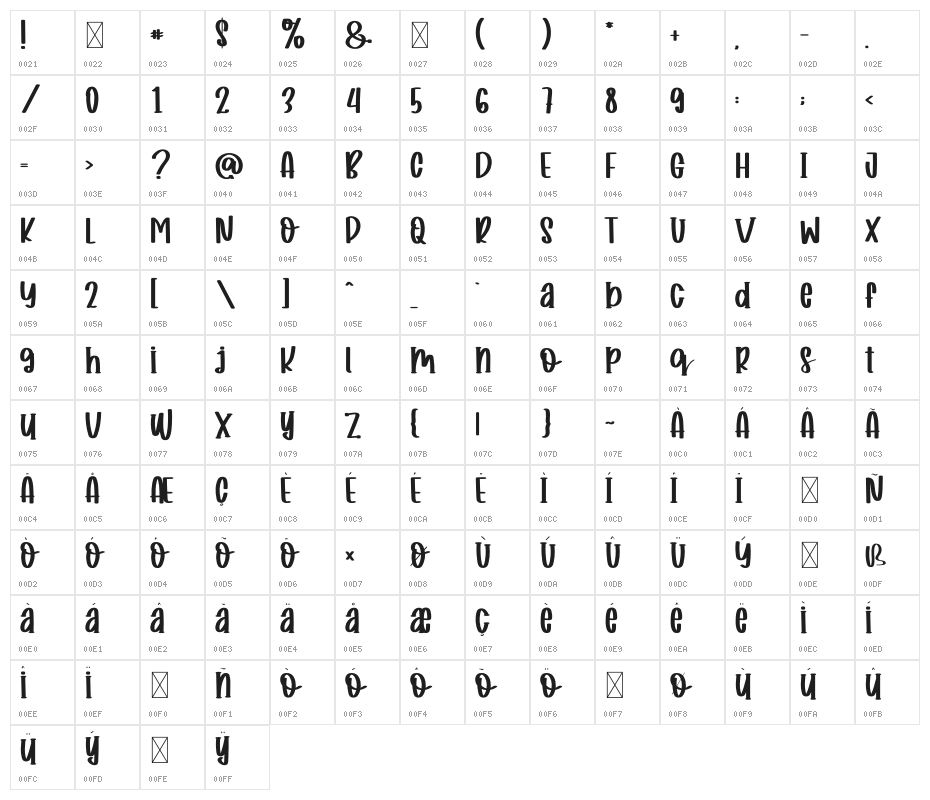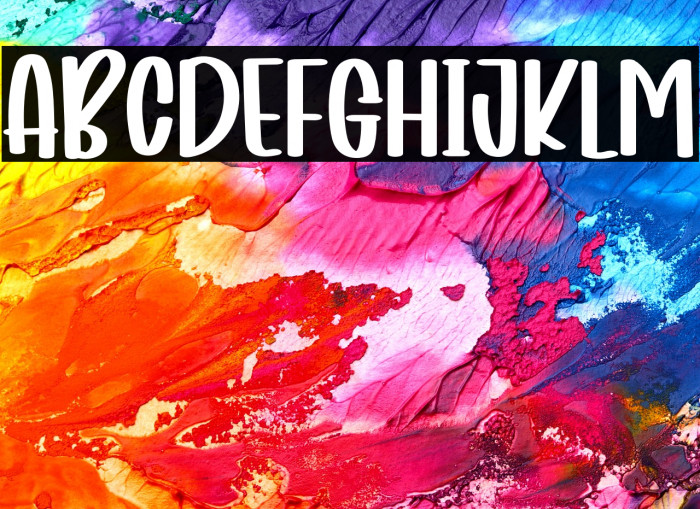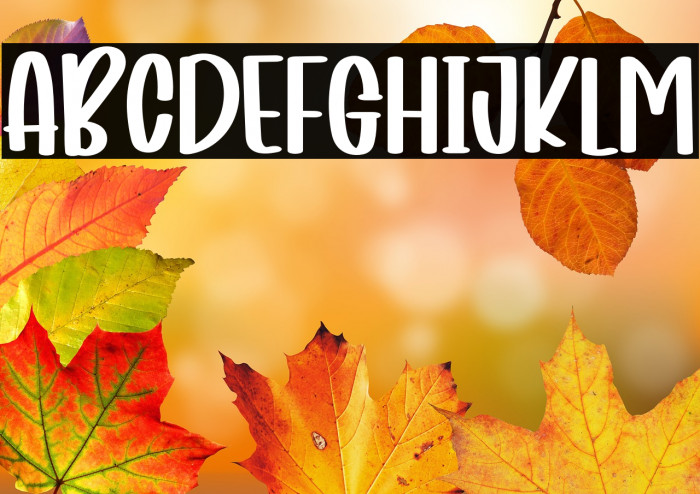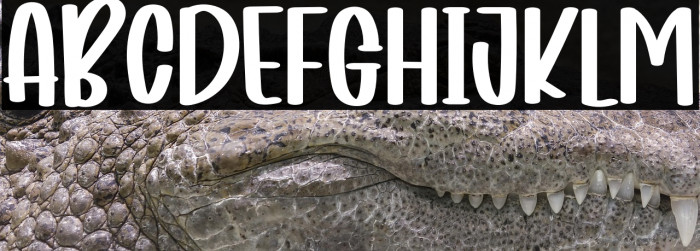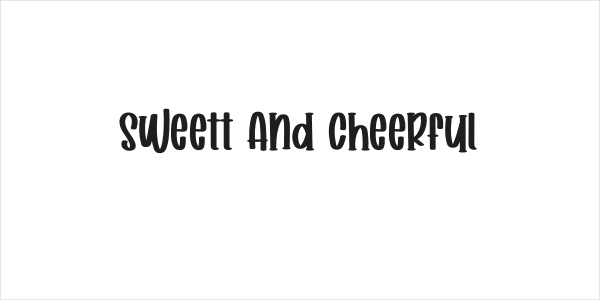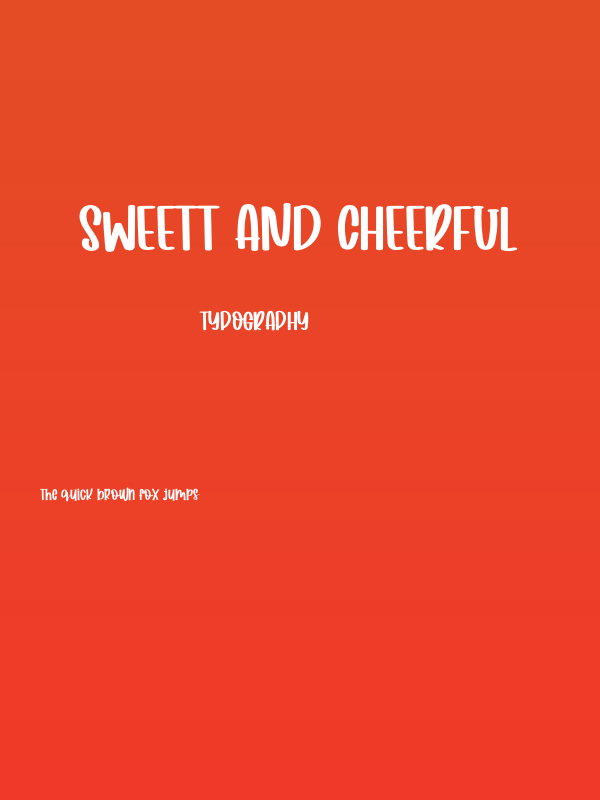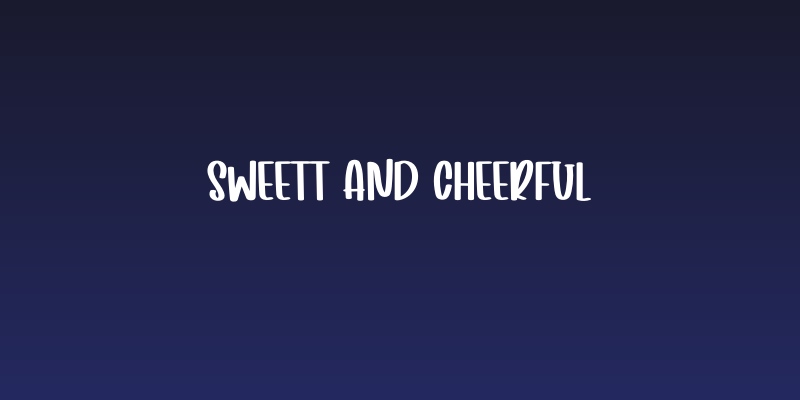
Sweett And Cheerful Font
Sweett And Cheerful Description
This font exudes a playful and cheerful vibe, characterized by its bold and rounded letterforms. The strokes are thick and consistent, creating a sense of warmth and friendliness. Each character has a slightly whimsical touch, with some letters featuring subtle curves and playful loops. The overall appearance is informal and inviting, making it ideal for projects that aim to convey a sense of fun and approachability. The font maintains a uniform weight throughout, ensuring readability while adding a touch of personality to the text.
Overall StylePlayful
Use CaseHeadlines, Logos, Invitations
Proposed ProjectsIdeal for children's books, playful branding, greeting cards, and casual invitations.